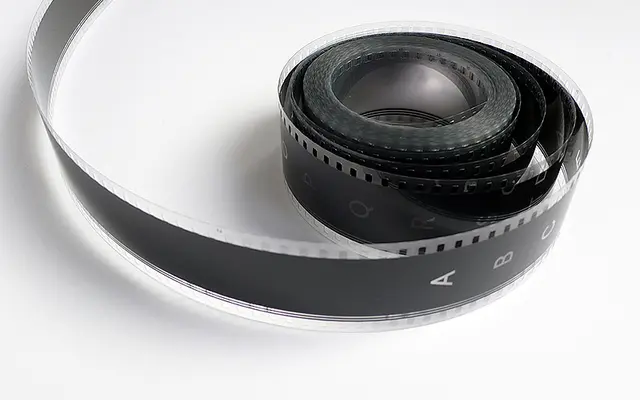
Korpus Grotesk
A sans-serif companion to the Binnenland serif typeface Korpus, translating its proportions and rhythm into a grotesque with four named weights and matching italics.
Developed as a direct continuation of Korpus, the design interprets phototype exposure characteristics from offset printing rather than the hot-metal references that inform its serif counterpart. Four weights run from A through D, each with an italic, and the family includes an extensive Latin Extended-A character set covering over forty European languages. OpenType features include small caps, proportional oldstyle figures, tabular figures, fractions, superior and inferior numerals, and a stylistic set offering alternate single-storey forms for 'a' and 'g'.
A sans-serif grotesque developed as a companion to the serif typeface Korpus, retaining its proportions and rhythm while interpreting phototype exposure characteristics from offset printing.